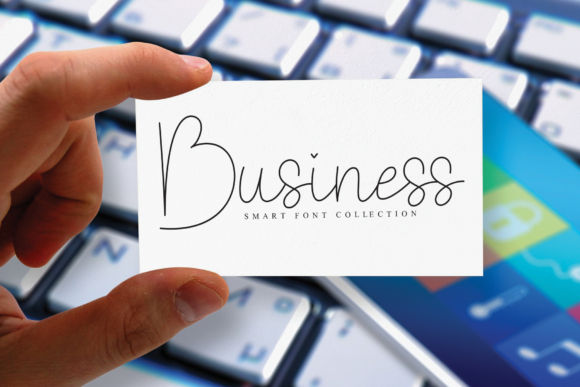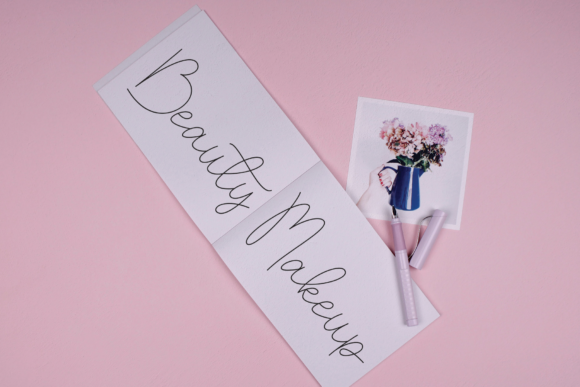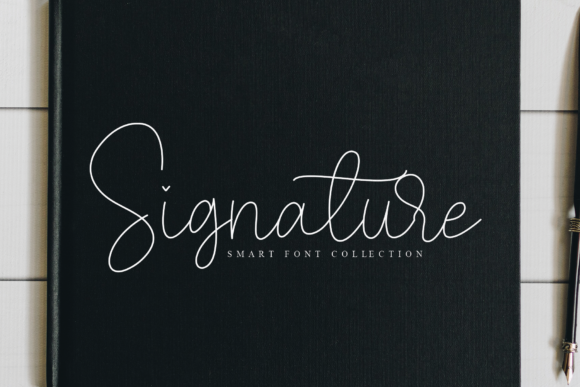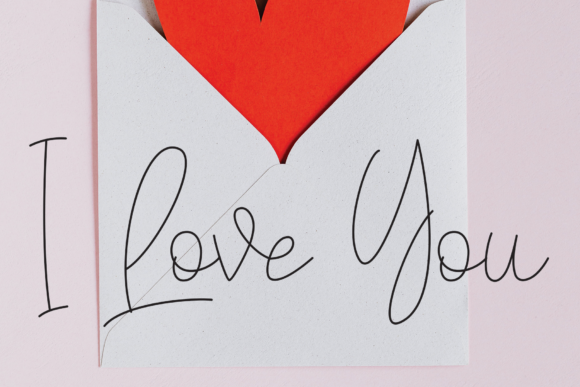
Introducing Butterly Font: The Whimsical Script Font for Creative Projects
Are you a designer or crafter looking for a unique and versatile font to elevate your creative projects? Look no further than Butterly Font, a whimsical script font with a relaxed theme that’s perfect for a wide range of applications. With its lovely style and effortless charm, Butterly Font is sure to become an incredibly valuable asset in your font library.
The Characteristics of Butterly Font
Butterly Font is a script font that exudes a sense of playfulness and relaxation. Its whimsical design features flowing lines, gentle curves, and a carefree attitude that’s perfect for projects that require a touch of personality. The font’s relaxed theme makes it ideal for use in a variety of creative projects, from branding and advertising to packaging and digital media.
One of the standout features of Butterly Font is its versatility. Whether you’re working on a serious project or a fun one, this font has the potential to elevate your design and add a touch of whimsy. Its lovely style is sure to capture the attention of your audience and leave a lasting impression.
The Benefits of Using Butterly Font
So why should you choose Butterly Font for your creative projects? Here are just a few benefits of using this amazing font:
- Unique and eye-catching design: Butterly Font features a one-of-a-kind design that’s sure to stand out in a crowd. Its whimsical style is perfect for projects that require a touch of personality and flair.
- Versatile and adaptable: Whether you’re working on a branding project, a digital media project, or a craft project, Butterly Font is versatile enough to adapt to any theme or style.
- Easy to read and understand: Despite its whimsical design, Butterly Font is easy to read and understand, making it perfect for use in body text and other applications where legibility is key.
- High-quality and professional: Butterly Font is a high-quality font that’s been designed with professionals in mind. Its smooth lines and gentle curves make it perfect for use in a wide range of creative projects.
Using Butterly Font in Your Creative Projects
So how can you use Butterly Font in your creative projects? Here are a few ideas to get you started:
- Branding and advertising: Use Butterly Font to create eye-catching logos, advertisements, and marketing materials that showcase your brand’s personality and style.
- Digital media: Add a touch of whimsy to your digital media projects, such as social media graphics, blog posts, and website designs, with Butterly Font.
- Crafting and DIY projects: Use Butterly Font to add a personal touch to your crafting and DIY projects, such as handmade cards, gift tags, and other paper crafts.
- Packaging and labeling: Stand out on store shelves with Butterly Font, perfect for use in packaging and labeling projects that require a touch of personality.
Tips and Tricks for Working with Butterly Font
Here are a few tips and tricks to keep in mind when working with Butterly Font:
- Experiment with different colors and textures: Butterly Font looks great in a variety of colors and textures, so don’t be afraid to experiment and find the perfect combination for your project.
- Use it sparingly: While Butterly Font is a beautiful font, it can be overwhelming if used too much. Use it sparingly to add a touch of whimsy to your design.
- Pair it with other fonts: Butterly Font pairs well with a variety of other fonts, so don’t be afraid to experiment with different font combinations to find the perfect look for your project.
In conclusion, Butterly Font is a whimsical script font with a relaxed theme that’s perfect for a wide range of creative projects. Its lovely style and effortless charm make it an incredibly valuable asset in any font library. Whether you’re a designer, crafter, or DIY enthusiast, Butterly Font is sure to elevate your designs and add a touch of personality to your projects.